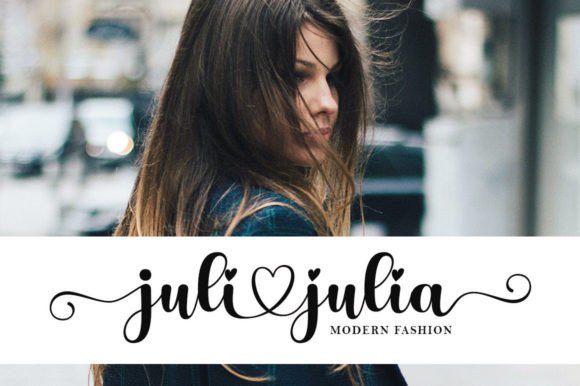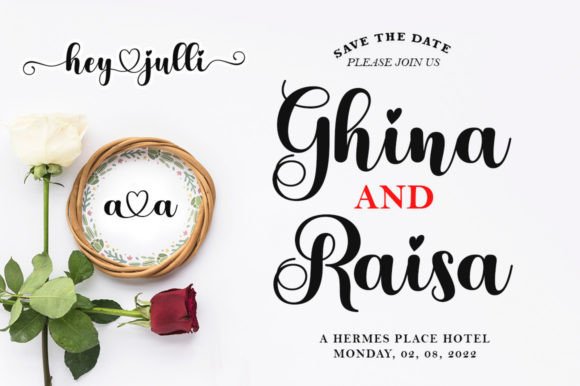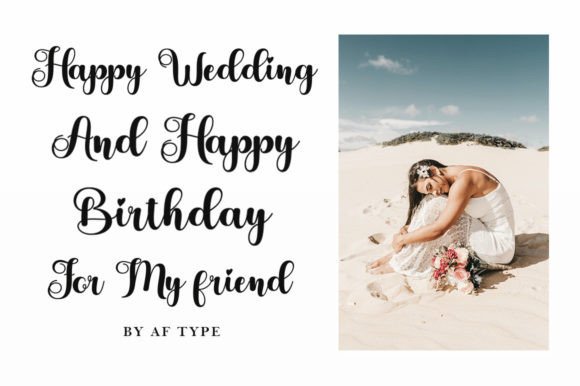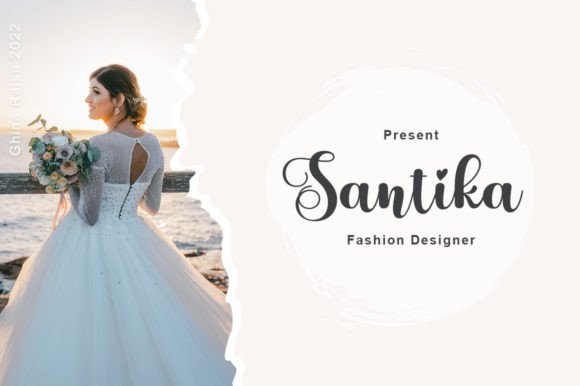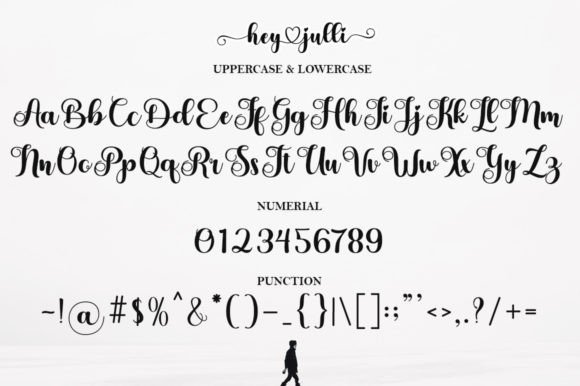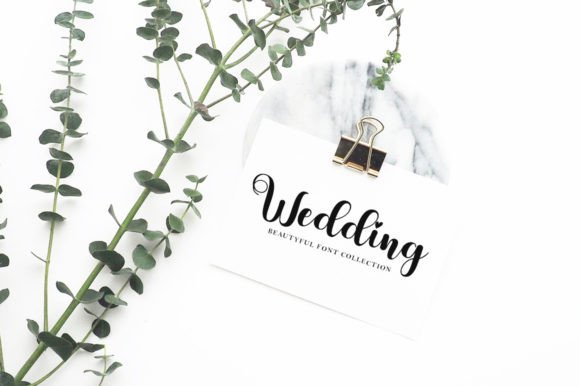
Introduction to Hey Julli Font
You know that moment when you’re working on a creative project and you just can’t seem to find the right font to bring your vision to life? You’ve tried searching through countless options, but nothing seems to capture the essence of your design. That’s when I discovered the Hey Julli Font – a beautiful, free download that has been a game-changer for my design projects.
With its romantic and sweet calligraphy style, the Hey Julli Font adds a touch of elegance to any design. The characters seem to dance along the baseline, creating a sense of movement and energy that’s perfect for creative projects. Whether you’re working on a wedding invitation, a blog post, or a social media graphic, this font is sure to bring a high-quality, professional touch to your design.
As a valuable design resource, the Hey Julli Font offers a transparent background, making it easy to customize and use in a variety of settings. Plus, its free download makes it accessible to designers of all levels – from beginners to professionals. With the Hey Julli Font, you’ll be able to take your designs to the next level and create something truly special.
Key Features of Hey Julli Font
- Unique, hand-drawn design with a transparent background, allowing for easy customization and composition.
- Designed to be versatile, suitable for use in various design contexts, from logos to typography-based art.
Honest Review: Hey Julli Font
As a designer, I’m always on the lookout for high-quality design resources that can elevate my creative projects. The Hey Julli Font is one such resource that caught my attention.
- ✨ The font is incredibly versatile and can be used for a wide range of design projects, from digital interfaces to print materials.
- ✨ The transparent background feature allows for seamless integration with any design element, giving me more creative freedom.
- ⚠️ Some users may find the font’s unique style a bit too bold or overwhelming, depending on their design aesthetic.
Overall, I’m impressed with the Hey Julli Font’s high quality and versatility. While it may have some limitations, I believe it’s a valuable addition to any designer’s toolkit. I’d definitely recommend it for anyone looking to add some flair to their creative projects.
Tips for Getting the Most Out of Hey Julli Font
For the best results, use the Hey Julli Font with a transparent background and high-quality images. This will help your design stand out and look professional.
The Hey Julli Font is perfect for:
- Flyers and brochures
- Business cards and logos